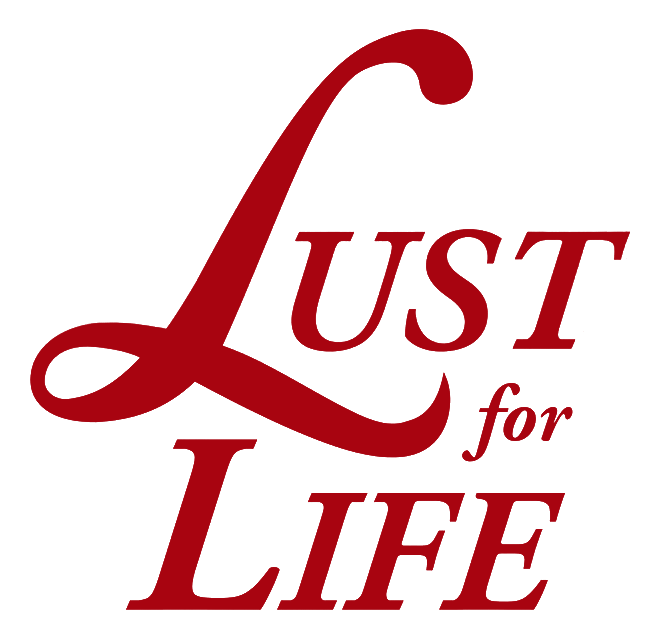
Lana Del Rey Lust For Life Font
Lana Del Rey Lust For Life Font - Do you guys know which font they used on the album cover? The ornamented l is garamond alt italic (adapted), or something, it's a variant of. Lust for life text font. Web apr 13, 2017 at 19:03. Web i had been looking for a font from the lust for life cover on the internet for several months. Edited on mar 30, 2017 at 20:02 by. Mar 30, 2017 at 20:01. Web lust for life cover font.
Mar 30, 2017 at 20:01. Do you guys know which font they used on the album cover? Web i had been looking for a font from the lust for life cover on the internet for several months. Edited on mar 30, 2017 at 20:02 by. The ornamented l is garamond alt italic (adapted), or something, it's a variant of. Web lust for life cover font. Lust for life text font. Web apr 13, 2017 at 19:03.
Lust for life text font. Web i had been looking for a font from the lust for life cover on the internet for several months. Edited on mar 30, 2017 at 20:02 by. Do you guys know which font they used on the album cover? Web apr 13, 2017 at 19:03. Web lust for life cover font. The ornamented l is garamond alt italic (adapted), or something, it's a variant of. Mar 30, 2017 at 20:01.
Web lust for life cover font. Do you guys know which font they used on the album cover? Lust for life text font. The ornamented l is garamond alt italic (adapted), or something, it's a variant of. Mar 30, 2017 at 20:01.
Web lust for life cover font. Edited on mar 30, 2017 at 20:02 by. Lust for life text font. The ornamented l is garamond alt italic (adapted), or something, it's a variant of. Do you guys know which font they used on the album cover?
Web i had been looking for a font from the lust for life cover on the internet for several months. The ornamented l is garamond alt italic (adapted), or something, it's a variant of. Edited on mar 30, 2017 at 20:02 by. Web lust for life cover font. Web apr 13, 2017 at 19:03.
Edited on mar 30, 2017 at 20:02 by. Do you guys know which font they used on the album cover? Web i had been looking for a font from the lust for life cover on the internet for several months. Lust for life text font. Web lust for life cover font.
Do you guys know which font they used on the album cover? Web i had been looking for a font from the lust for life cover on the internet for several months. Lust for life text font. Edited on mar 30, 2017 at 20:02 by. Mar 30, 2017 at 20:01.
The ornamented l is garamond alt italic (adapted), or something, it's a variant of. Web i had been looking for a font from the lust for life cover on the internet for several months. Edited on mar 30, 2017 at 20:02 by. Do you guys know which font they used on the album cover? Web apr 13, 2017 at 19:03.
Web i had been looking for a font from the lust for life cover on the internet for several months. The ornamented l is garamond alt italic (adapted), or something, it's a variant of. Web lust for life cover font. Do you guys know which font they used on the album cover? Lust for life text font.
Web lust for life cover font. Web apr 13, 2017 at 19:03. Web i had been looking for a font from the lust for life cover on the internet for several months. The ornamented l is garamond alt italic (adapted), or something, it's a variant of. Mar 30, 2017 at 20:01.
The ornamented l is garamond alt italic (adapted), or something, it's a variant of. Edited on mar 30, 2017 at 20:02 by. Web apr 13, 2017 at 19:03. Mar 30, 2017 at 20:01. Web lust for life cover font.
Lust For Life Text Font.
Do you guys know which font they used on the album cover? The ornamented l is garamond alt italic (adapted), or something, it's a variant of. Web lust for life cover font. Web i had been looking for a font from the lust for life cover on the internet for several months.